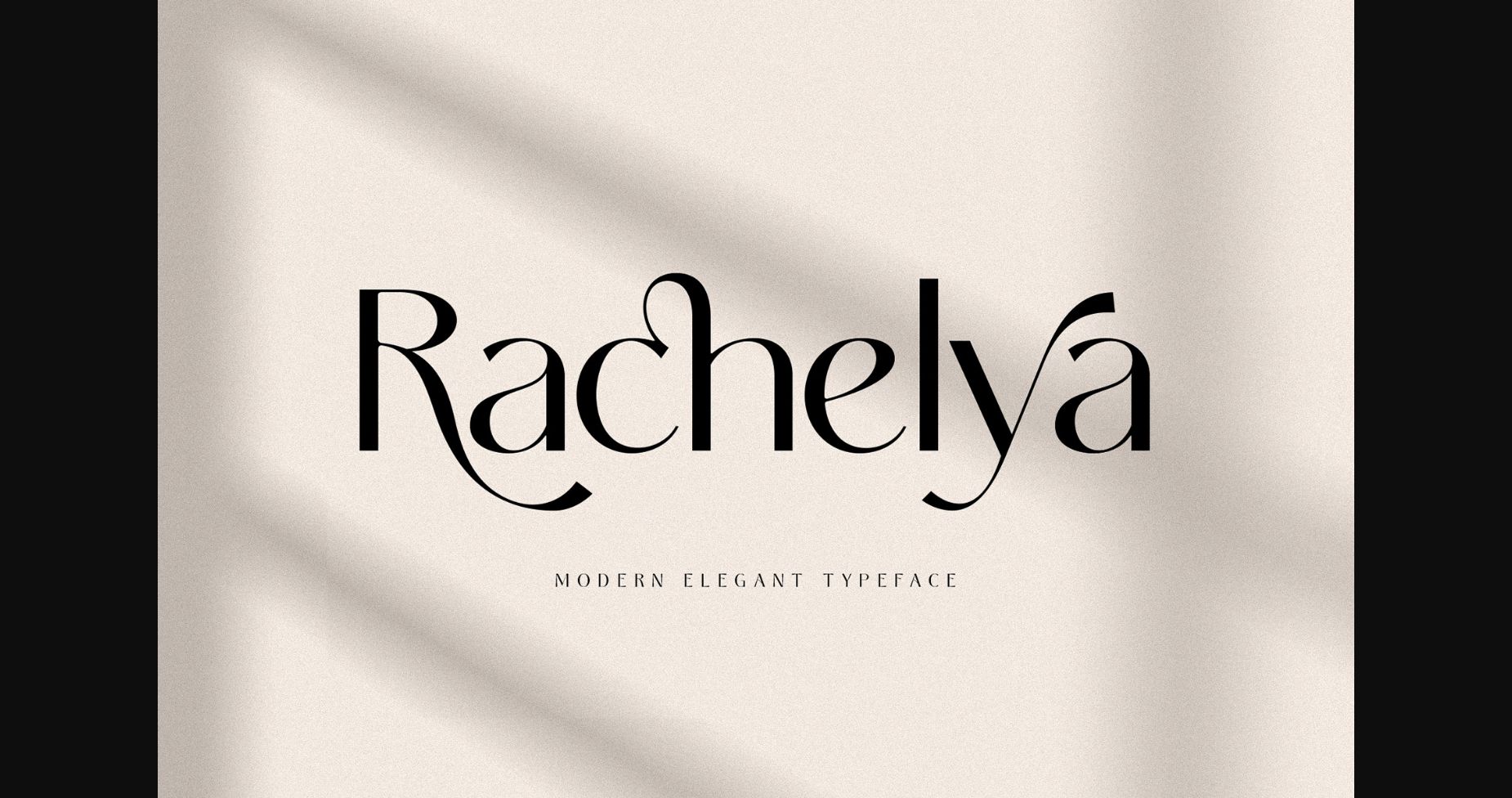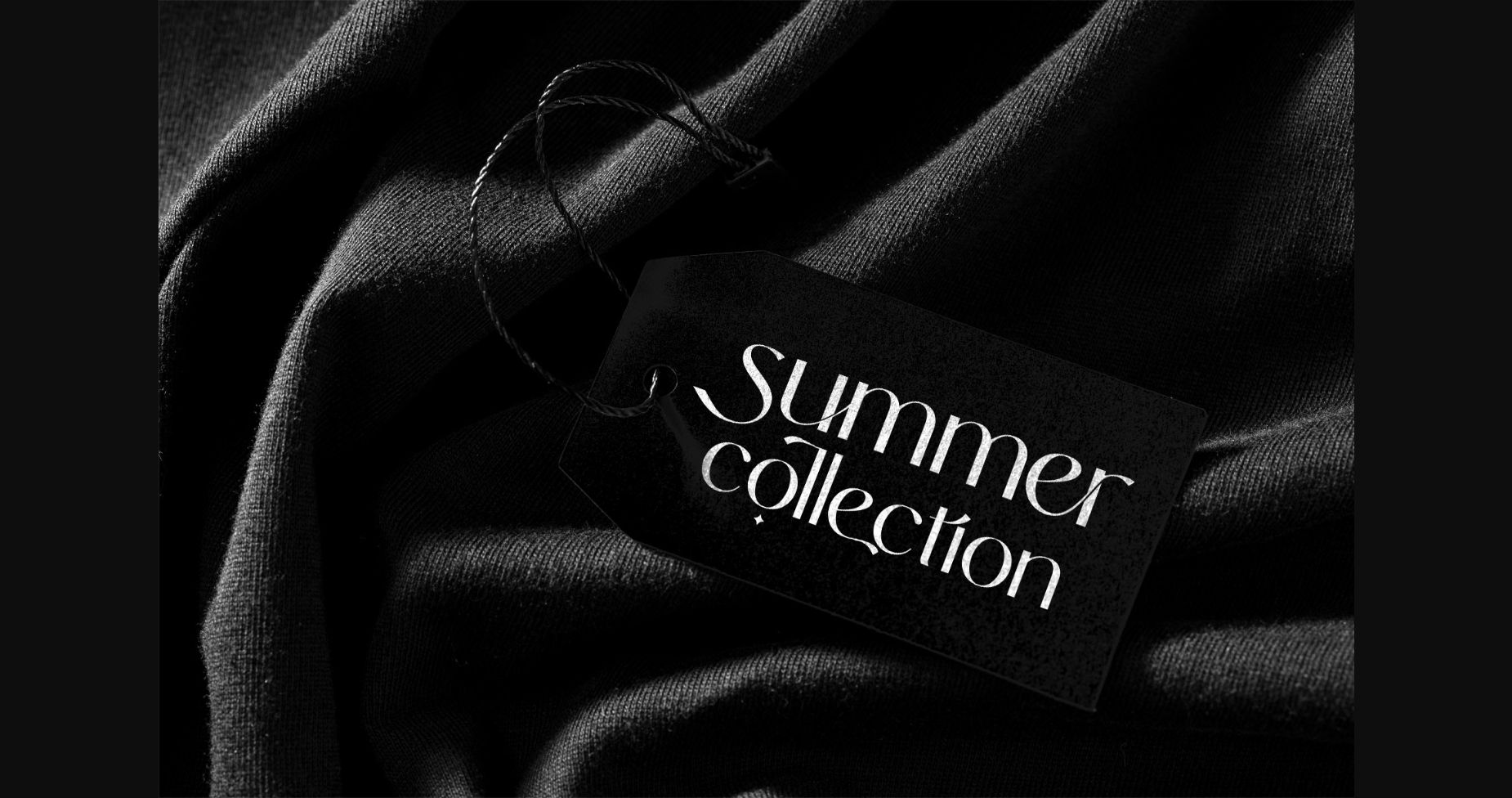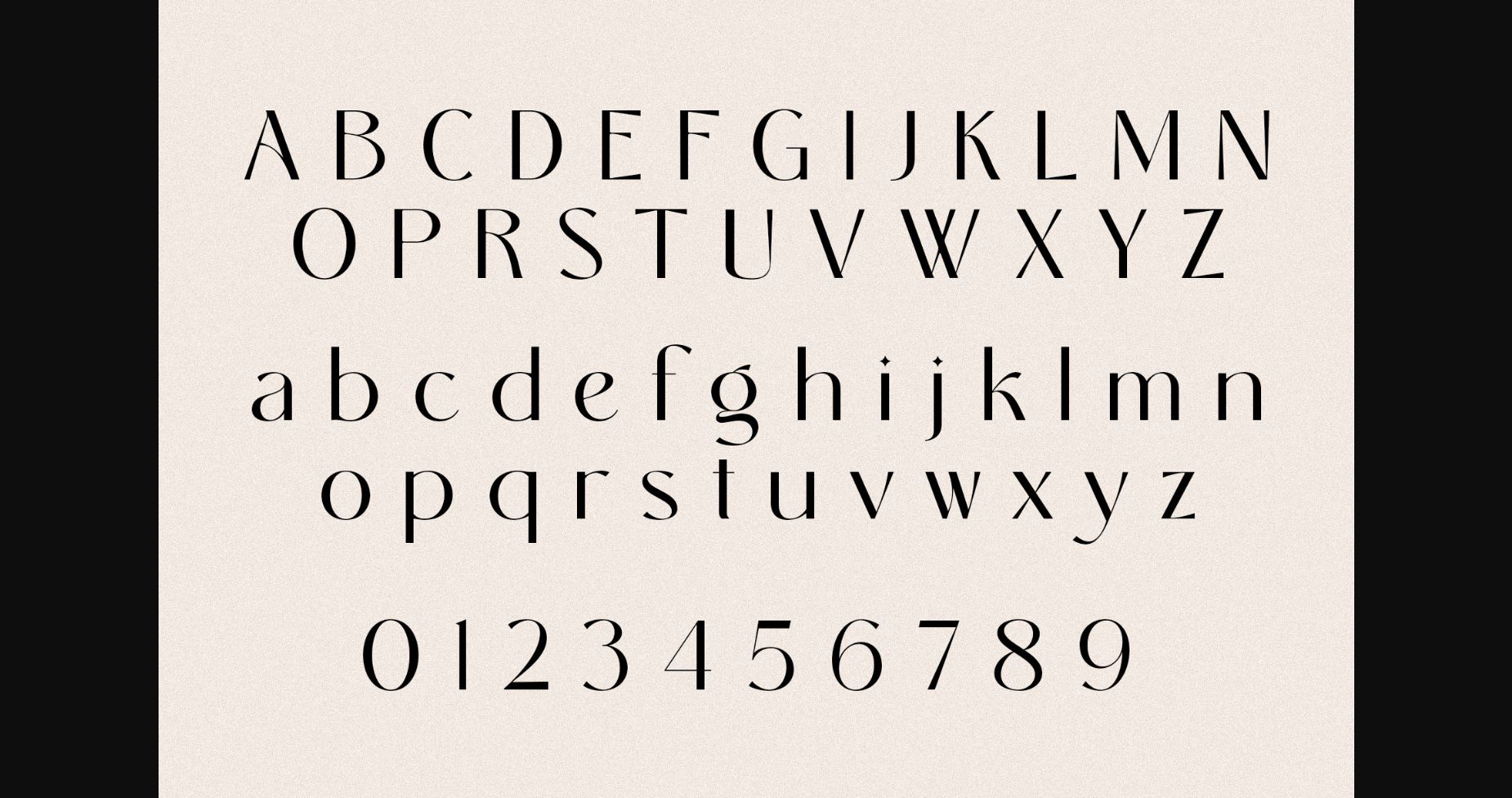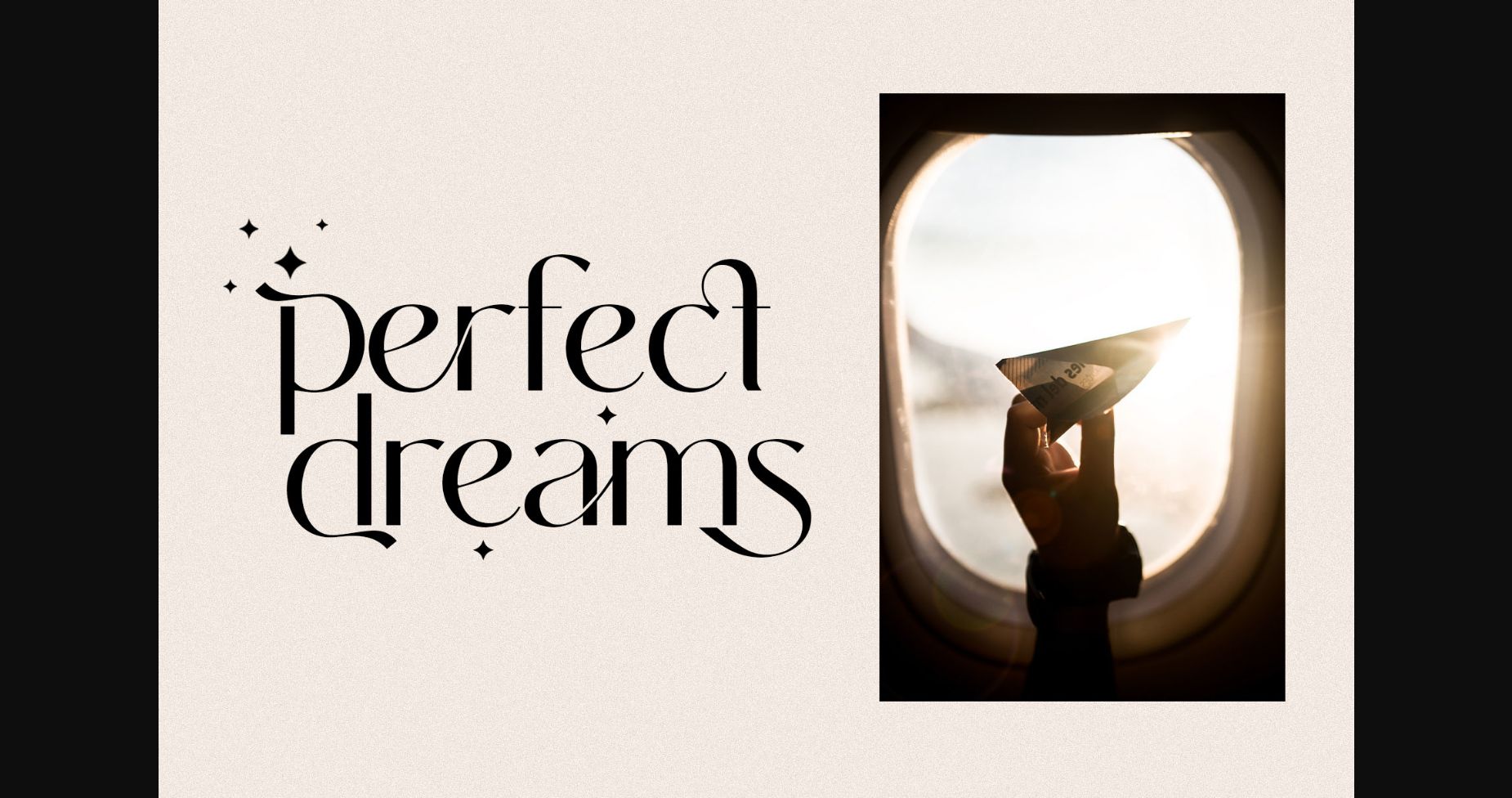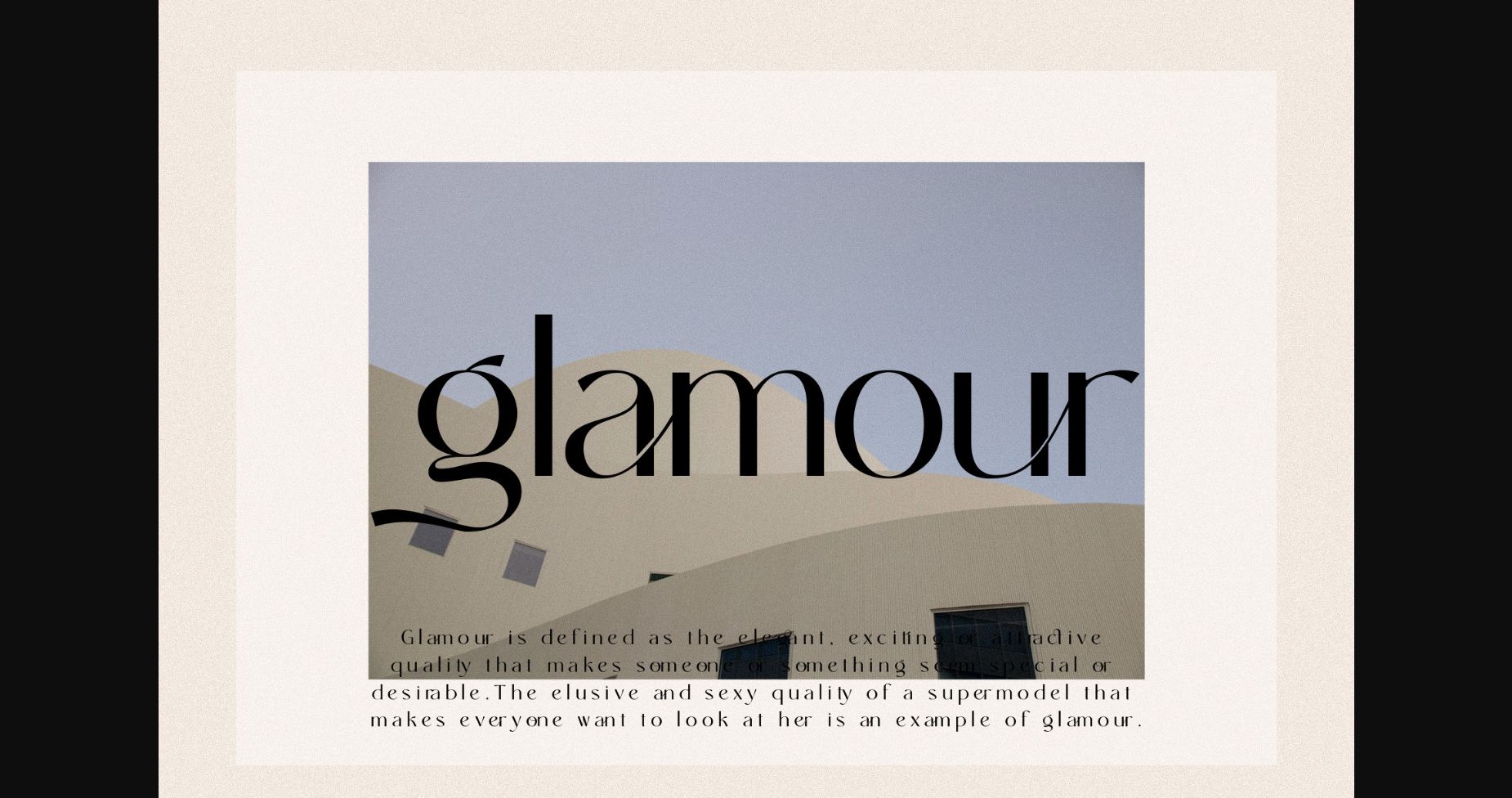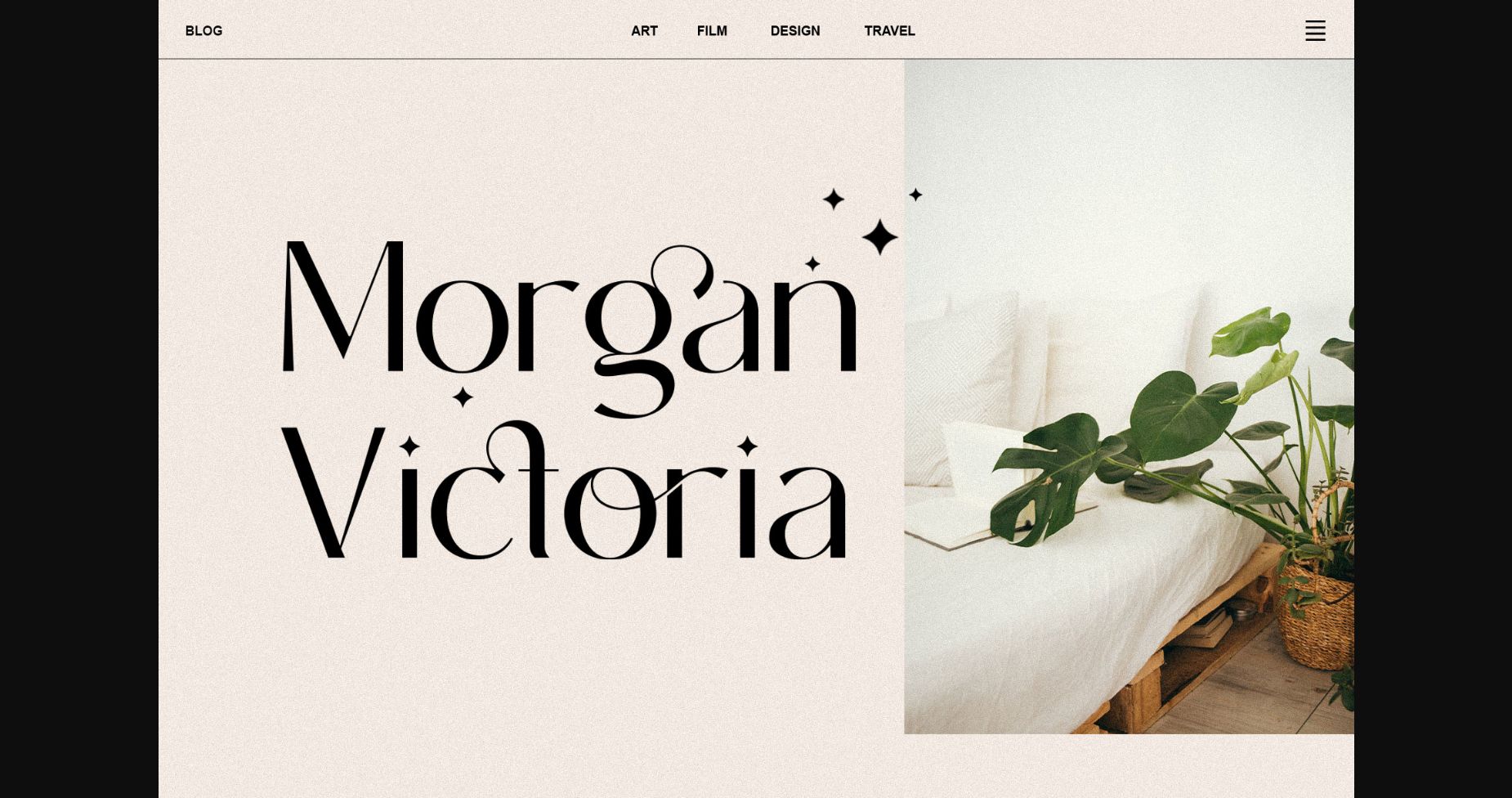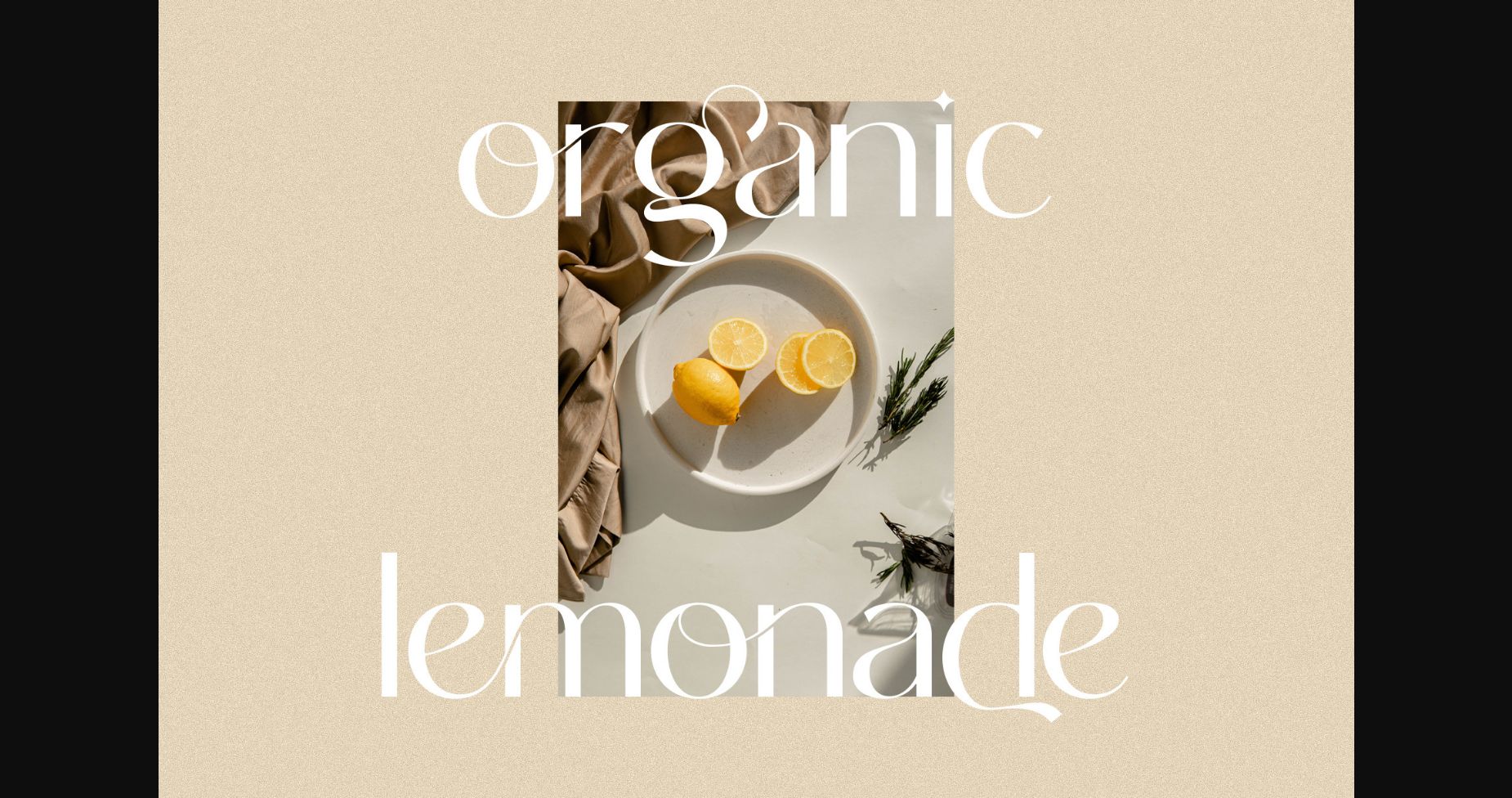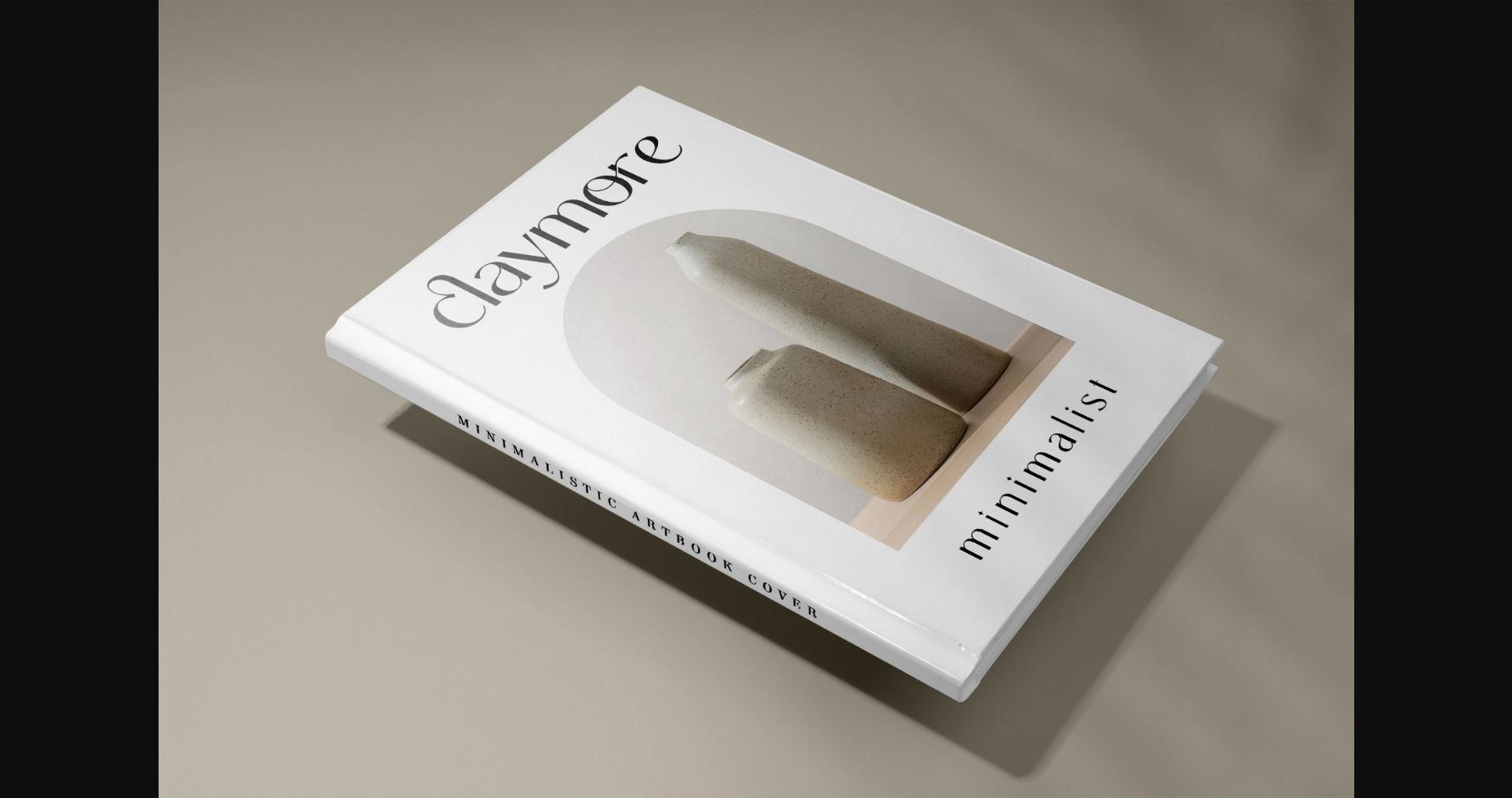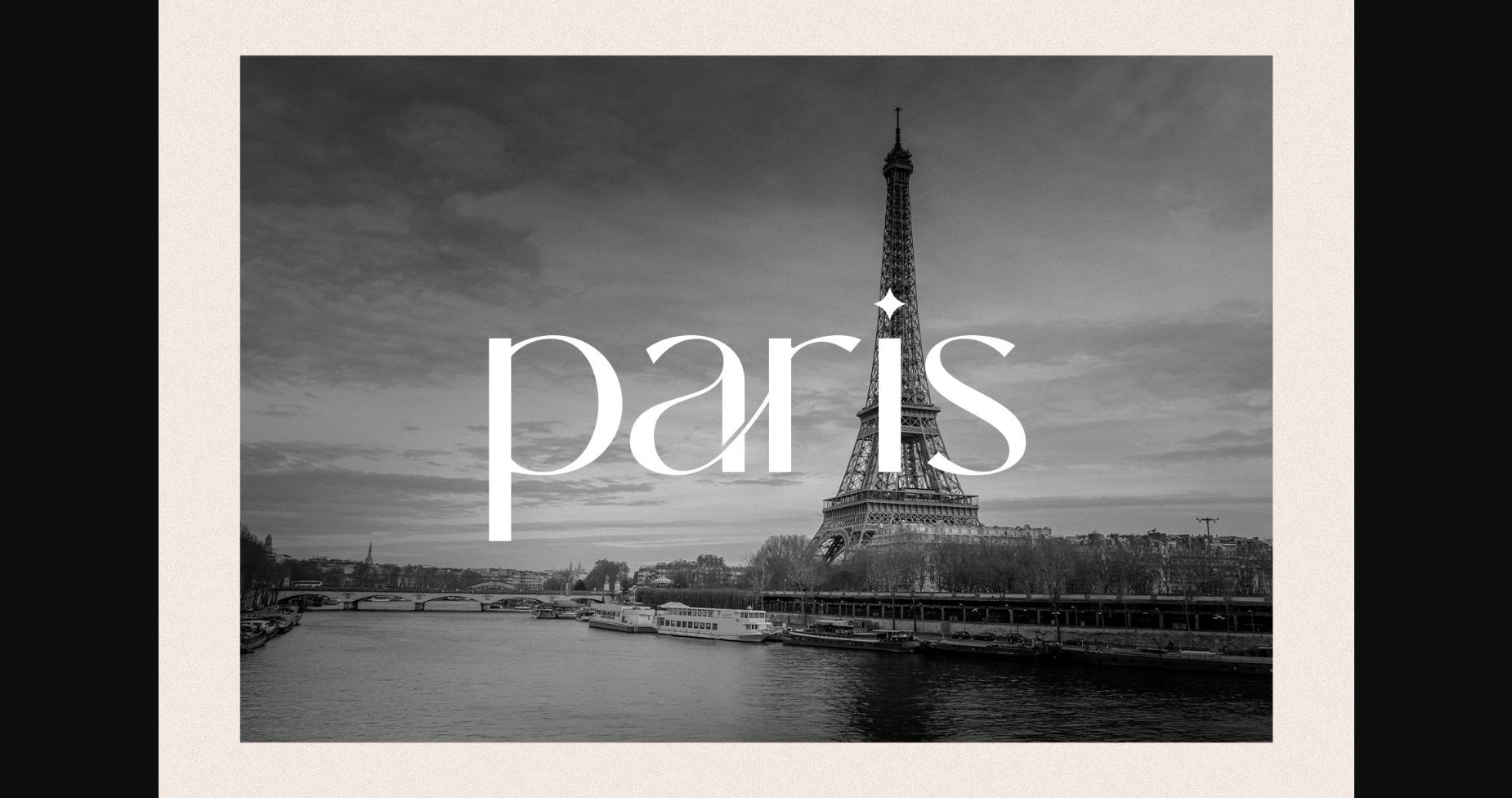
Rachelya is a modern, elegant typeface with a collection of stylistic alternates and ligatures. Rachelya has a mix of clean, medium lines and smooth curves, that make it perfect for beauty or fashion themes.